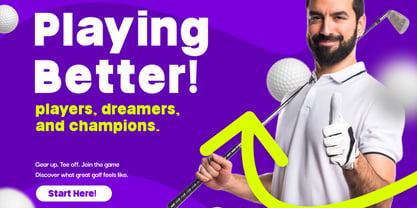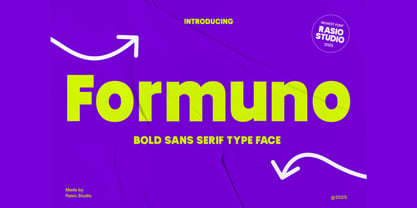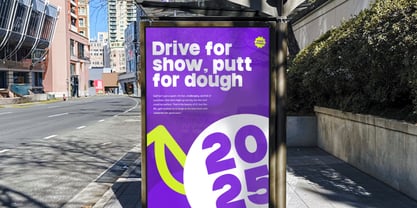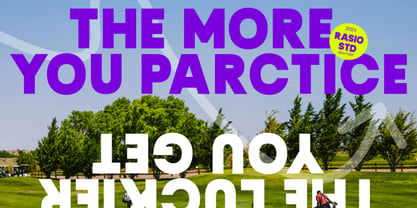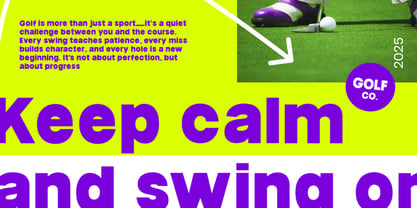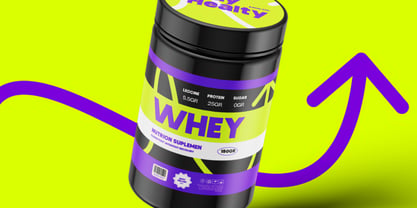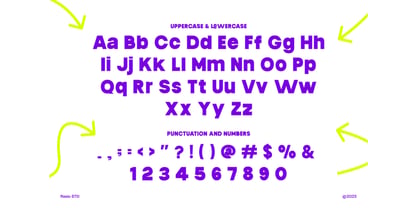
Formuno
The Formuno Font Family was designed by Fajar Indra and published by Rasio Studio. Formuno contains 1 styles. More about this family
Formuno is a bold modern sans serif typeface built with solid geometric structure, thick strokes, and smooth rounded corners that create a strong and confident visual impact. The letterforms feature compact proportions, clean cuts, and consistent weight for high legibility across large headlines and contemporary layouts. Relevance and Use Cases is perfect for sports branding, streetwear labels, posters, social media graphics, event promotions, tech campaigns, packaging, presentations, and bold editorial layouts that need powerful, eye-catching, and modern typography.